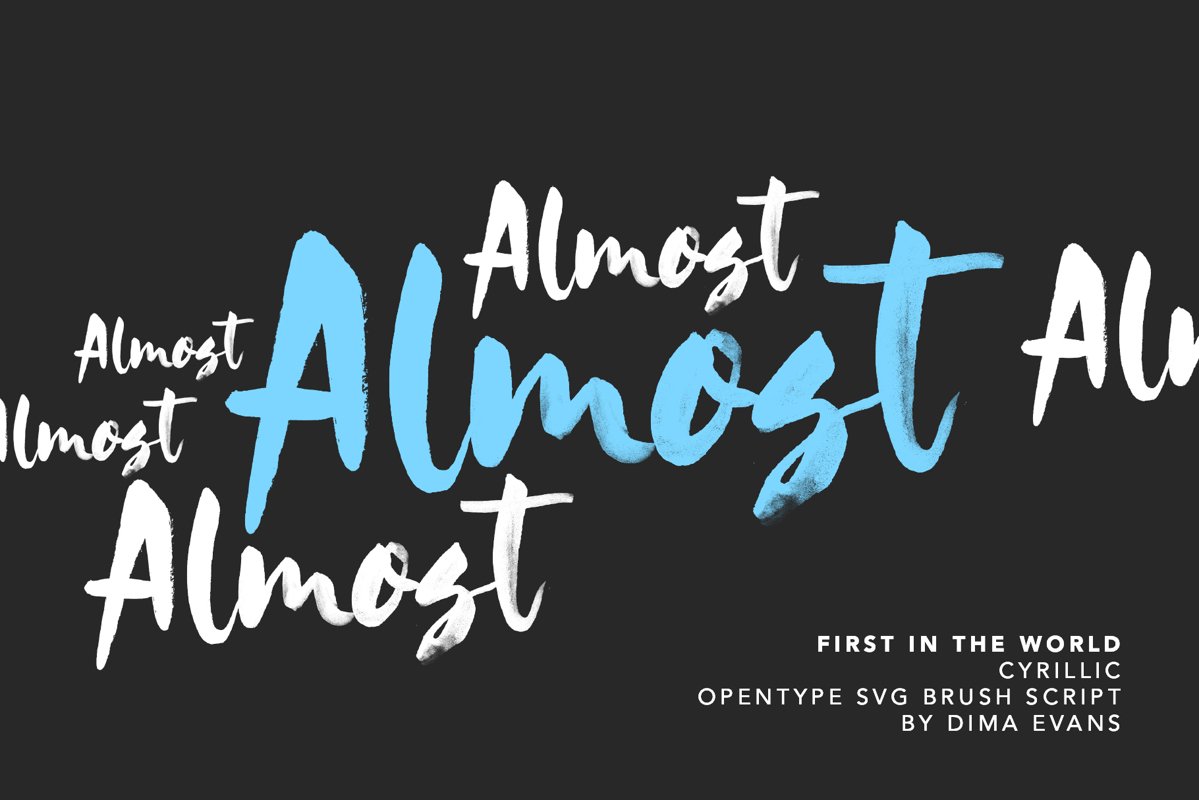
ALMOST handwritten Cyrillic Script SVG
Almost SOLID
The first Cyrillic SVG font, stunningly convey the texture of acrylic. Includes full set of lovely uppercase and lowercase letters, multilingual symbols, numerals and punctuation.